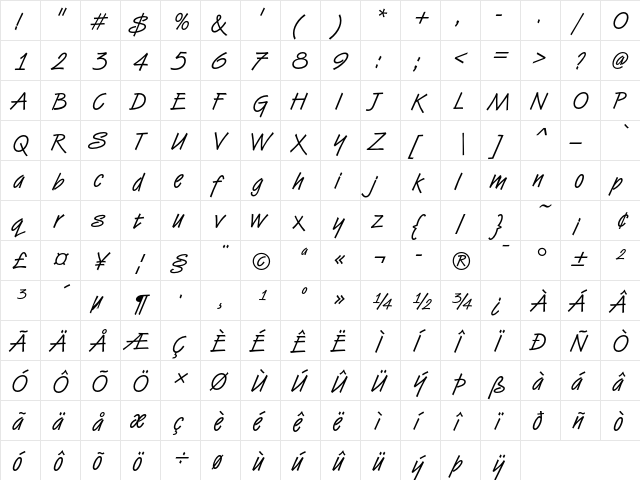
Van Dijk D Regular
Design Context for Van Dijk D Typeface
Van Dijk D takes a measured approach to typography — its balanced proportions and neutral character make it a reliable workhorse for both digital and print work.